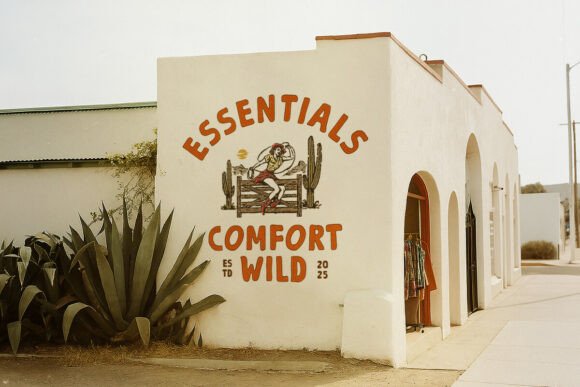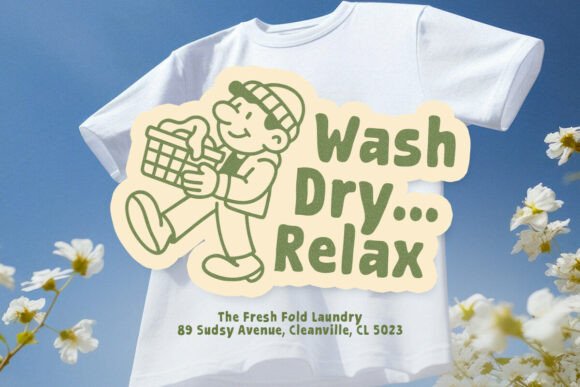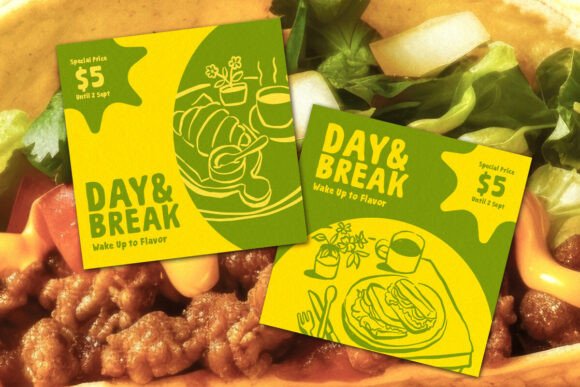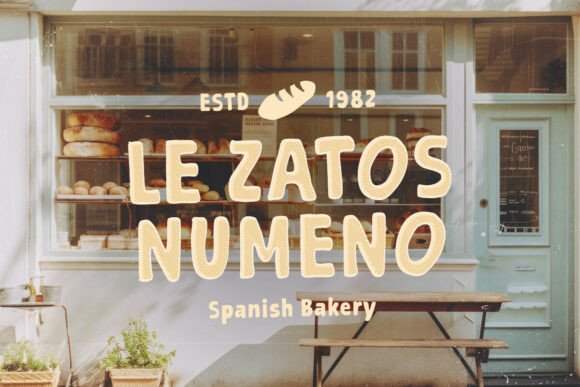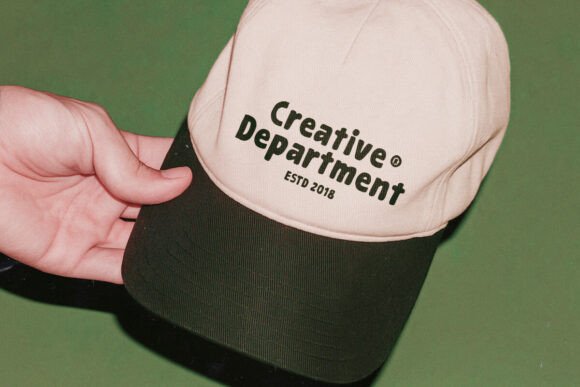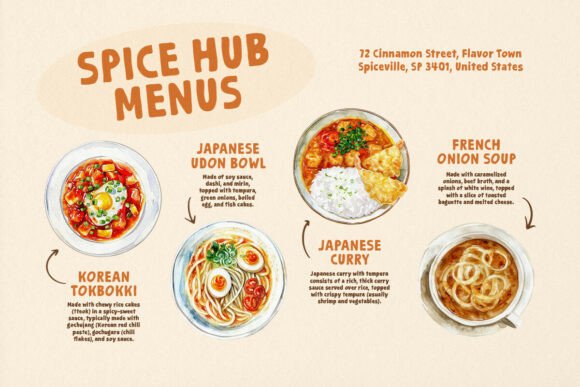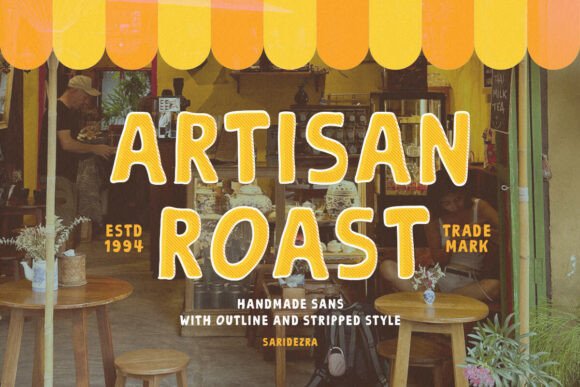
Introducing Artisan Roast Font: A Handmade Sans with a Personal Touch
In the world of typography, fonts play a crucial role in conveying the tone and personality of a brand or design. For designers and crafters looking for a unique and organic touch, Artisan Roast Font is an excellent choice. This handmade sans font comes in three styles: Inside, Outline, and Regular, offering endless possibilities for creative expression.
The Artisan Roast Font Family
Artisan Roast Font is a versatile font family that consists of three distinct styles: Inside, Outline, and Regular. Each style has its own unique characteristics, allowing designers to experiment with different combinations to achieve a stunning effect. The font’s handmade nature gives it a personal touch, making it perfect for projects that require a human and organic feel.
Key Features of Artisan Roast Font
- Three styles: Inside, Outline, and Regular, providing flexibility and creativity in design.
- Handmade sans: Giving the font a unique, organic, and human touch.
- Stackable styles: Combine the three styles to create a stunning and stylish effect.
- Multipurpose: Suitable for various projects, including logotype, quotes, branding, and more.
Using Artisan Roast Font in Design Projects
Artisan Roast Font is an excellent choice for designers and crafters looking to add a personal touch to their projects. Here are some ideas on how to use this font:
- Logotype: Create a unique and memorable logo for your brand using Artisan Roast Font.
- Quotes and typography: Use the font to create stunning quotes, posters, and typographic designs.
- Branding: Add a touch of personality to your brand’s identity with Artisan Roast Font.
- Crafting and DIY projects: Use the font to create handmade cards, invitations, and other craft projects.
Tips for Getting the Most Out of Artisan Roast Font
To maximize the creative potential of Artisan Roast Font, consider the following tips:
- Experiment with style combinations: Stack the Inside, Outline, and Regular styles to create unique and eye-catching designs.
- Play with colors and textures: Add depth and interest to your design by incorporating different colors and textures.
- Use the font in different sizes: Experiment with different font sizes to create visual hierarchy and emphasis.
Artisan Roast Font is a versatile and creative font family that offers a unique, handmade sans with a personal touch. With its three styles, stackable design, and multipurpose nature, this font is perfect for designers and crafters looking to add an organic and human touch to their projects. Whether you’re creating a logotype, quote, or branding identity, Artisan Roast Font is an excellent choice.